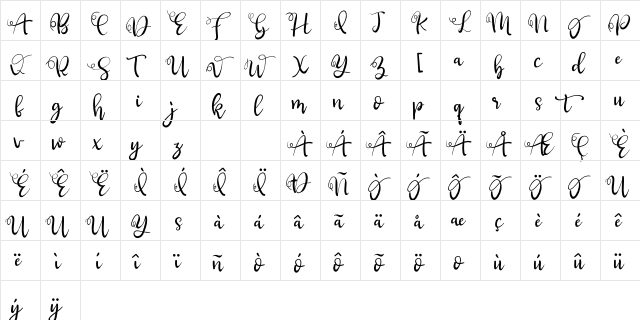
Suci Marwati Regular Font Preview
Suci Marwati Regular
Suci Marwati Regular Font Details
| Foundry | lyth creative |
| Designer | Ana Natalia |
Design Context for Suci Marwati Typeface
Suci Marwati is a composed and adaptable typeface that performs quietly and consistently across a wide range of design contexts.